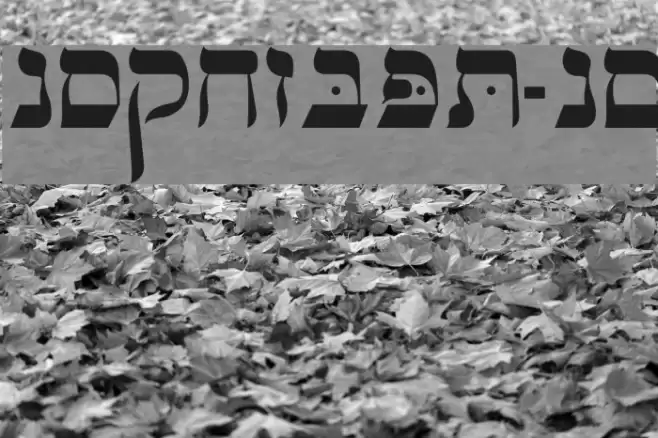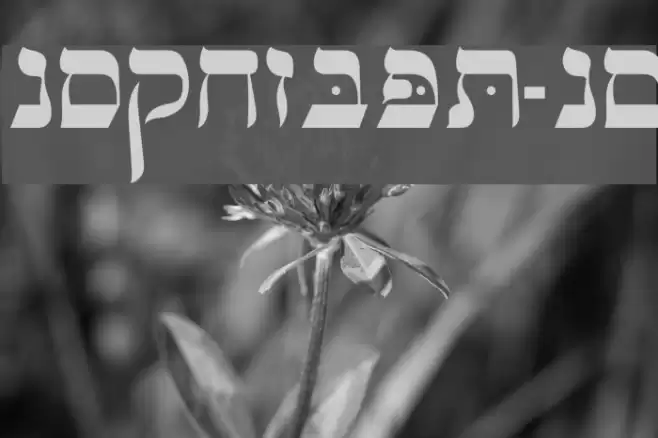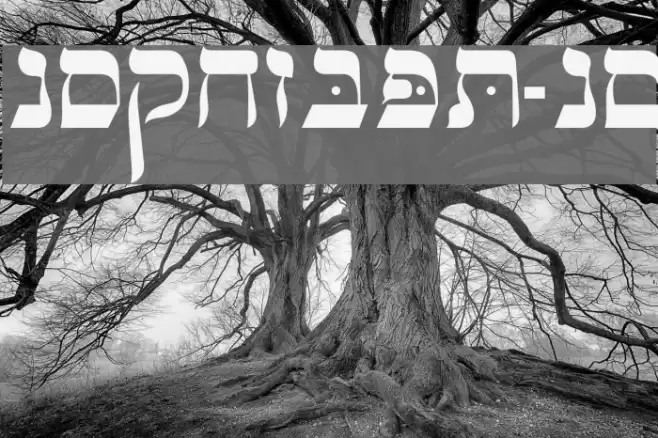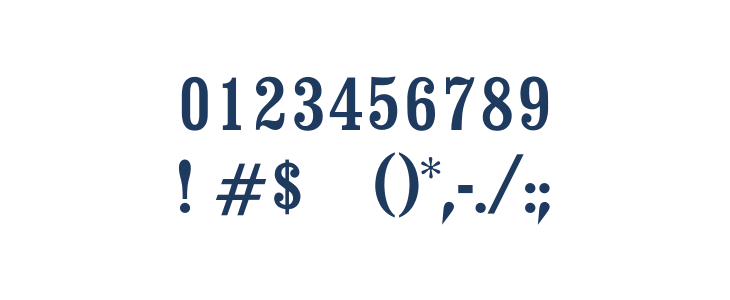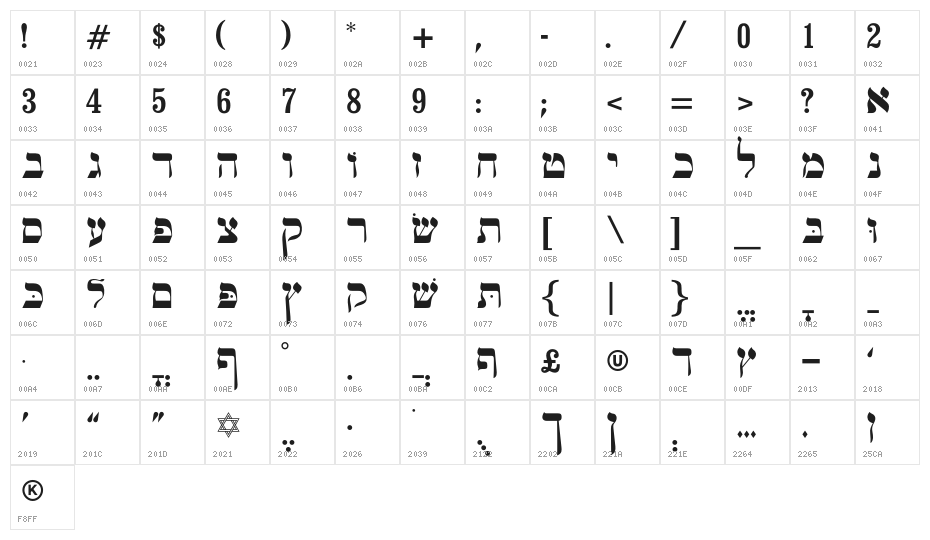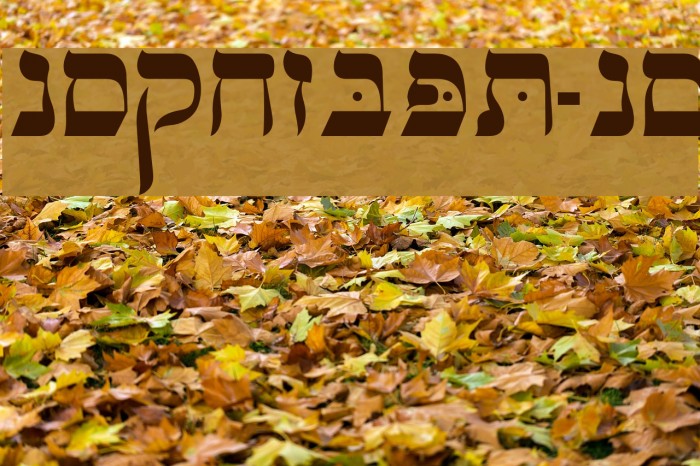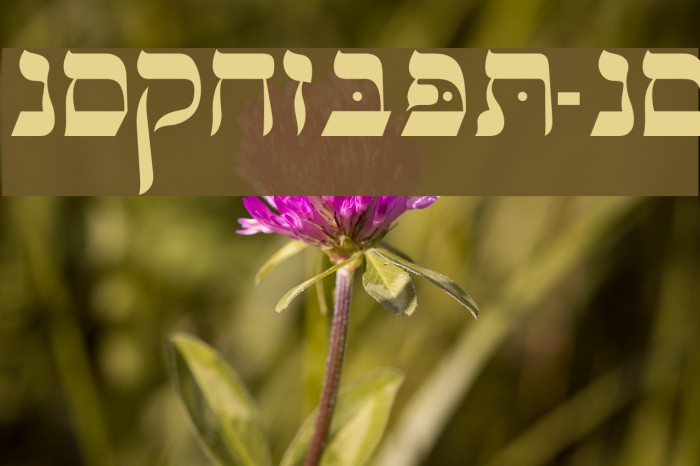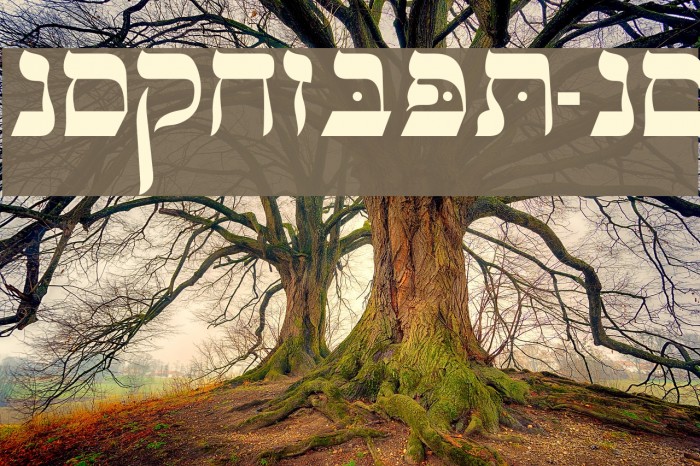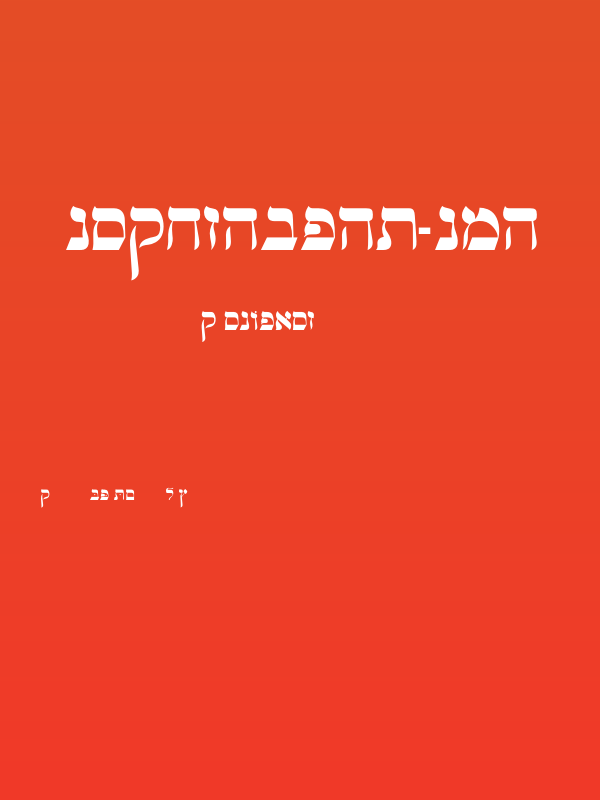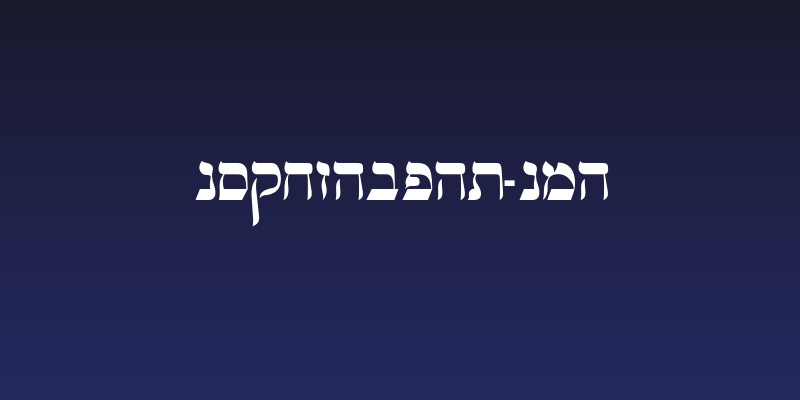
OPTIHebrew-One Font
OPTIHebrew-One Description
This font features a bold and striking design, characterized by its strong, thick strokes and high contrast. The Hebrew characters are stylized with a modern twist, incorporating both traditional elements and contemporary flair. The numerals and special characters maintain a consistent boldness, ensuring readability and visual impact. The overall appearance is dynamic and assertive, making it suitable for attention-grabbing designs. The font's unique style is both decorative and functional, ideal for projects that require a distinctive and memorable typeface.
A bold, high-contrast Hebrew font with a modern and decorative style from Uncategorized fonts.
- Proposed Projects: Ideal for branding, posters, headlines, and any design requiring a bold and memorable typeface.
- Overall Style: Modern, Decorative